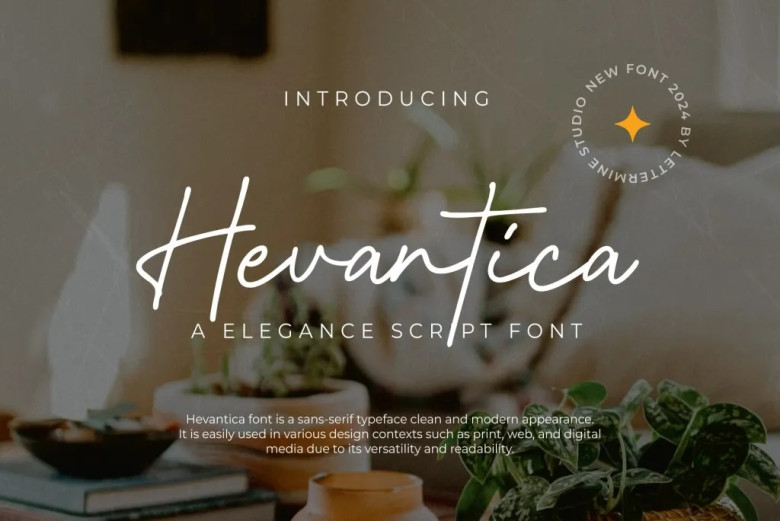
Hevantica Font
Hevantica Handwritten Font represents elegance and sophistication through typography. Carefully created, its designs bring your work to new levels of classiness and refinement.
Hevantica Handwritten Script Font